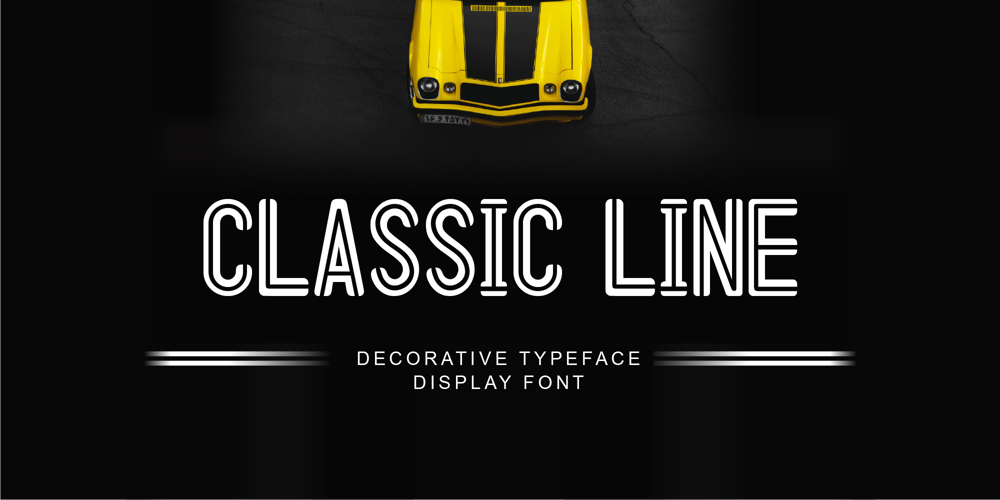
CLASSIC Line Font Family was designed by Wahyu Aji Prasetyo and published by WAP Type. CLASSIC Line contains 1 styles and family package options. frontline classic font Font a stylish Font. It’s useful for any Design project. Decal, card, e-card, Good for Logos & Headlines, Poster,Tag design, Newspaper & Magazine Ad Design and many more. True type and Open type font files